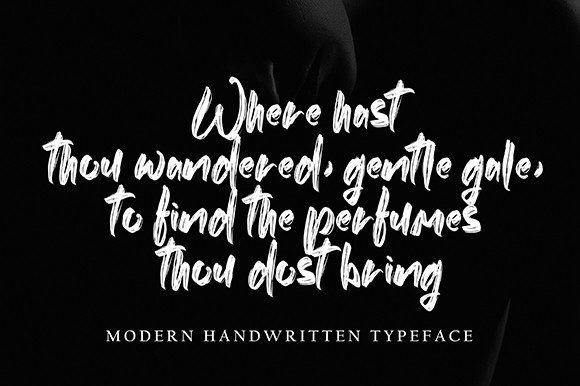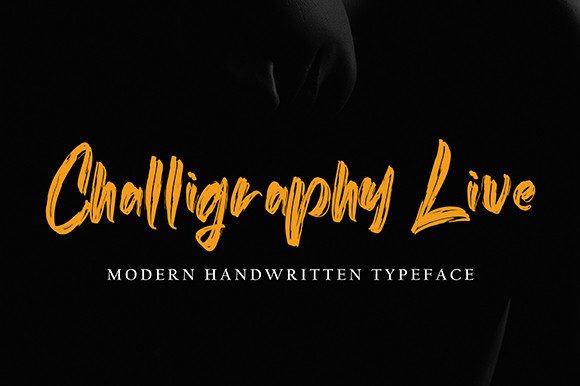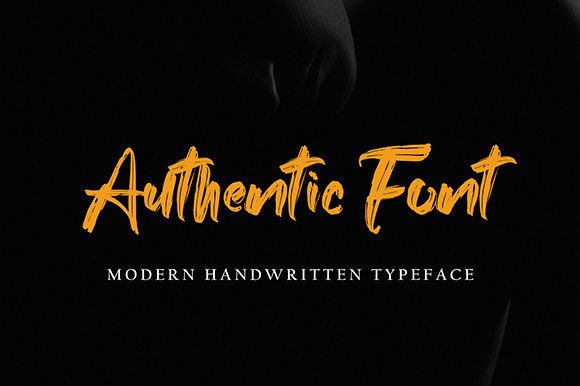
Introduction to Sita Jojho Font
Have you ever stared at a blank canvas, trying to find the perfect font to bring your creative project to life? We’ve all been there – the cursor blinks, the ideas swirl, and suddenly, a spark of inspiration strikes. For designers, finding the right font can be the difference between a good design and a great one.
That’s where the Sita Jojho Font comes in – a stunning script font that’s perfect for a variety of projects, from quotes and logos to watermarks, invitations, and social media graphics. With its elegant, flowing lines and high-quality design, this font is a valuable resource for any designer looking to add a touch of sophistication to their work.
Not only is the Sita Jojho Font a great design resource, but it’s also a free download, making it accessible to designers of all levels. Whether you’re working on a personal project or a commercial one, this font is sure to impress with its transparent background and high-quality design. In this article, we’ll take a closer look at the Sita Jojho Font and explore its many uses and benefits.
Key Features of Sita Jojho Font
- High-quality font with transparent background, ideal for creative projects requiring a unique design resource.
- Resolution-independent, ensuring crisp and clear display on various devices and resolutions.
- Unique, handcrafted design with intricate details, making it a standout choice for designers seeking a distinctive look.
- Perfect for use in graphic design, digital art, and other creative pursuits where a high-quality, free design resource is essential.
Honest Review: Sita Jojho Font
As a designer, I’m always on the lookout for high-quality design resources to enhance my creative projects. Recently, I came across the Sita Jojho Font, and I’m excited to share my honest review.
The Sita Jojho Font is a beautiful, elegant script font that’s perfect for adding a touch of sophistication to your designs. It’s a free download, which is a huge plus in my book. I appreciate the transparent background, which makes it easy to work with.
Here’s what works well:
- ✨ Elegant and sophisticated design
- ✨ Transparent background for easy editing
However, there are some limitations:
- ⚠️ Limited language support
- ⚠️ May not be suitable for very large font sizes
Overall, I’m impressed with the Sita Jojho Font. It’s a high-quality design resource that can add a touch of elegance to your creative projects. While it has some limitations, I think it’s well worth considering for your next design project.
Tips for Getting the Most Out of Sita Jojho Font
Use Sita Jojho Font to add a touch of elegance to your designs. With its high-quality design and transparent background, it’s perfect for creating a design resource that stands out. To get the most out of it, use it in combination with other design elements to create a visually appealing design. You can also use it to create a logo or branding material for your creative project.
Common Use Cases for Sita Jojho Font
Sita Jojho Font is a versatile font that can be used in a variety of creative projects. Some common use cases include creating a logo or branding material, designing a brochure or flyer, and creating a social media graphic or post. With its high-quality design and transparent background, it’s perfect for creating a